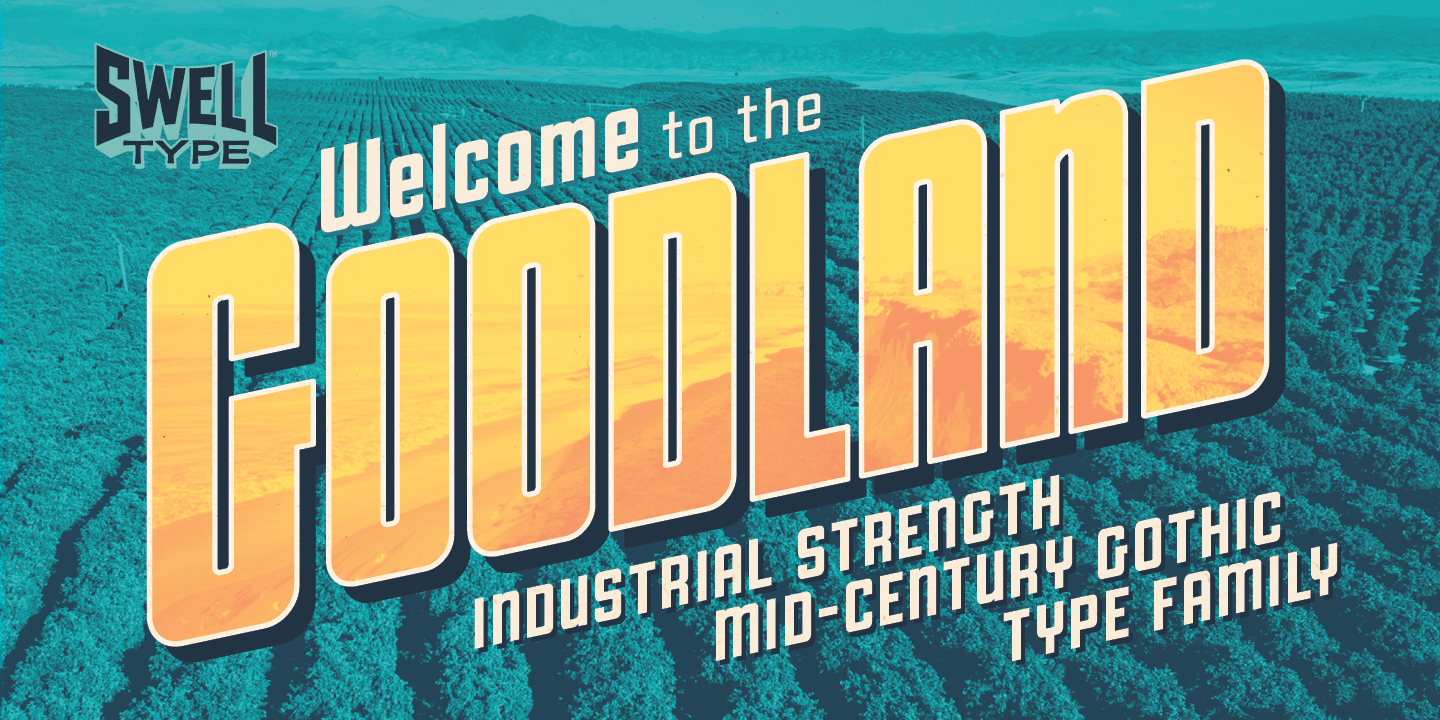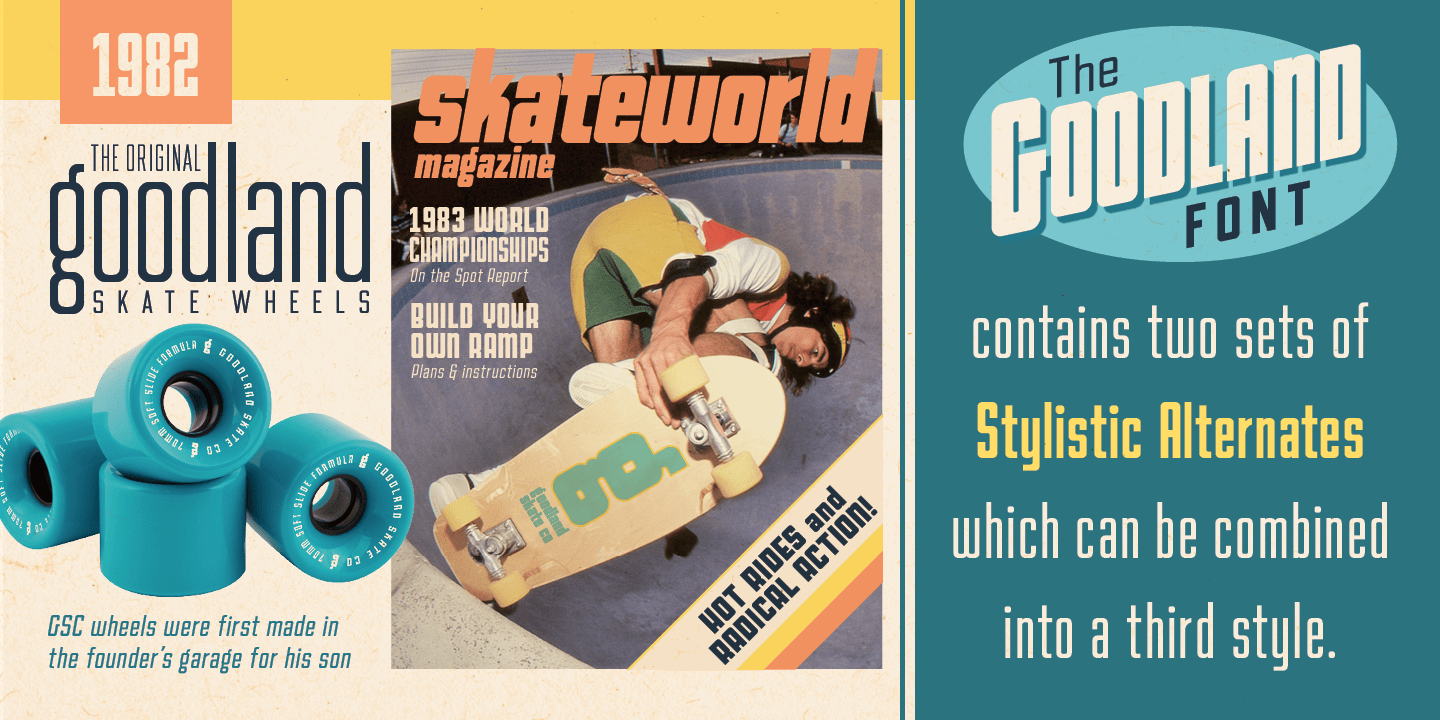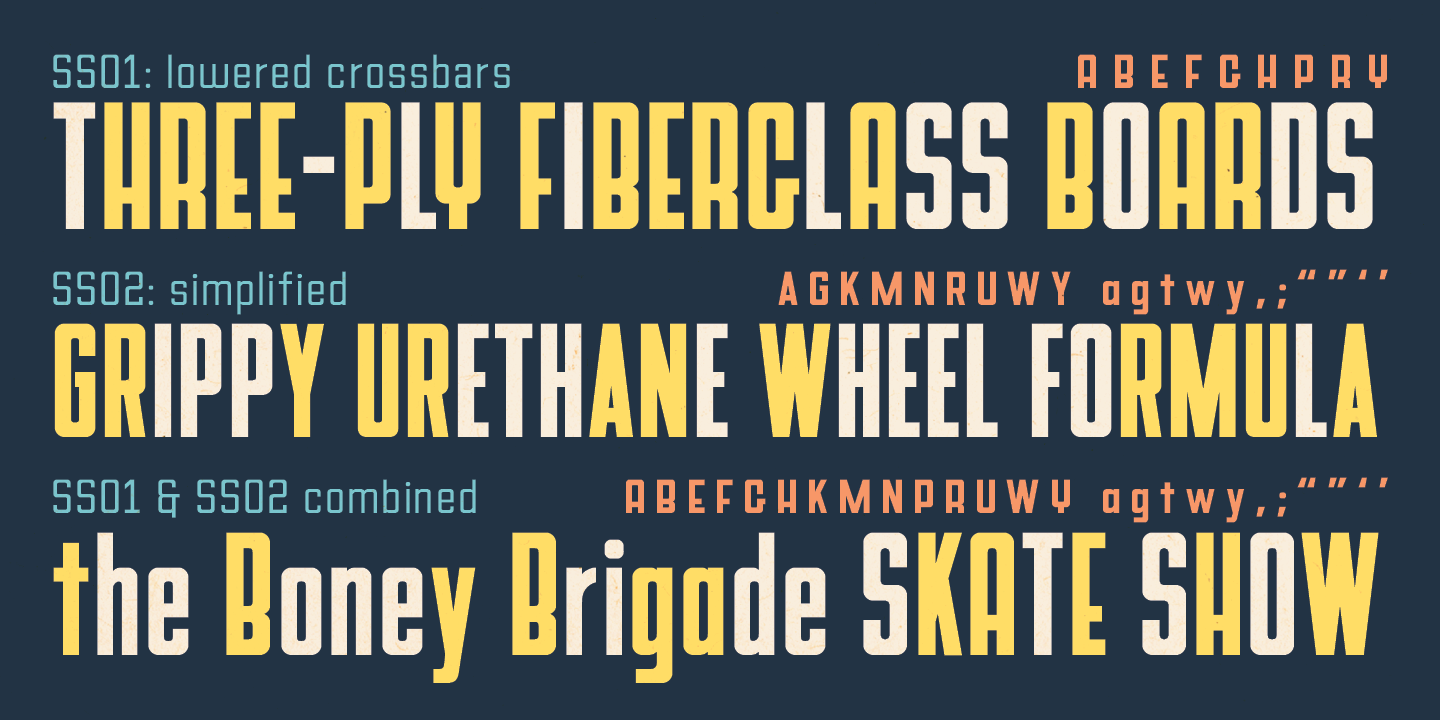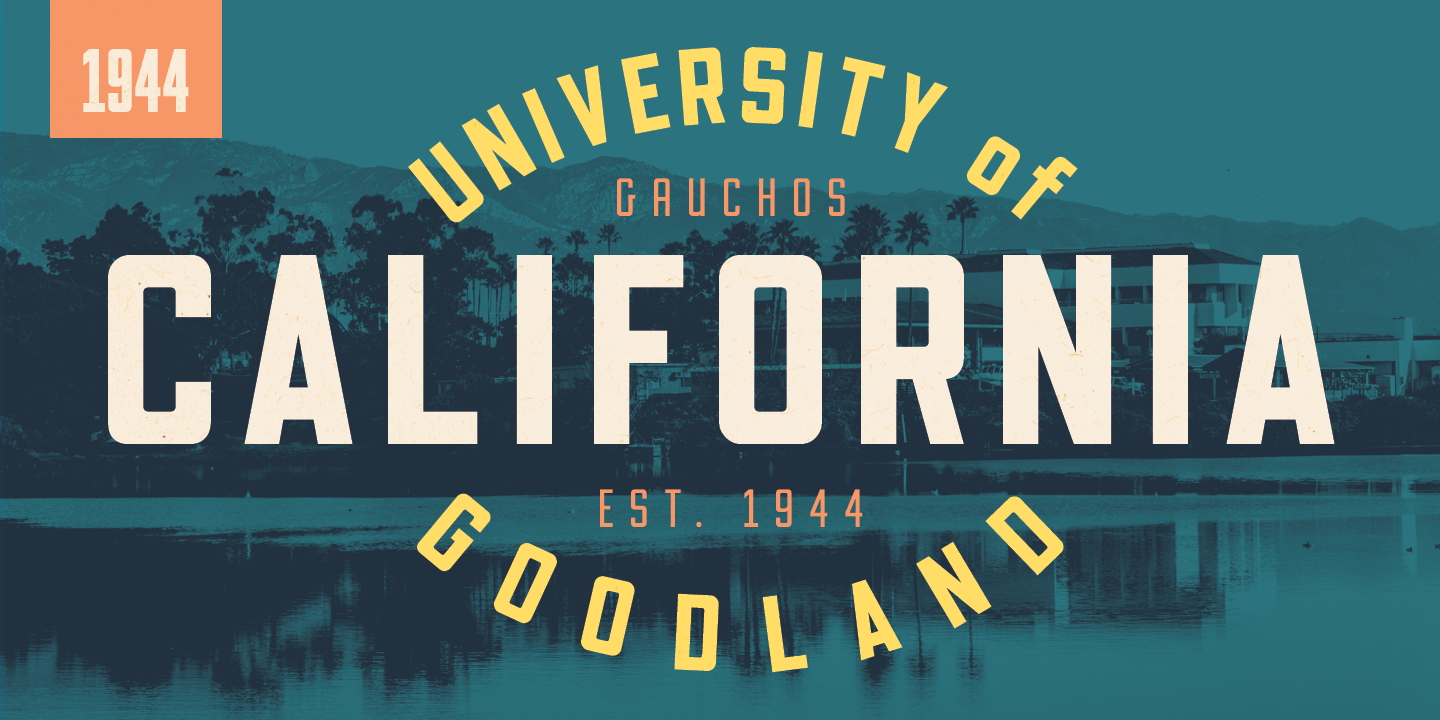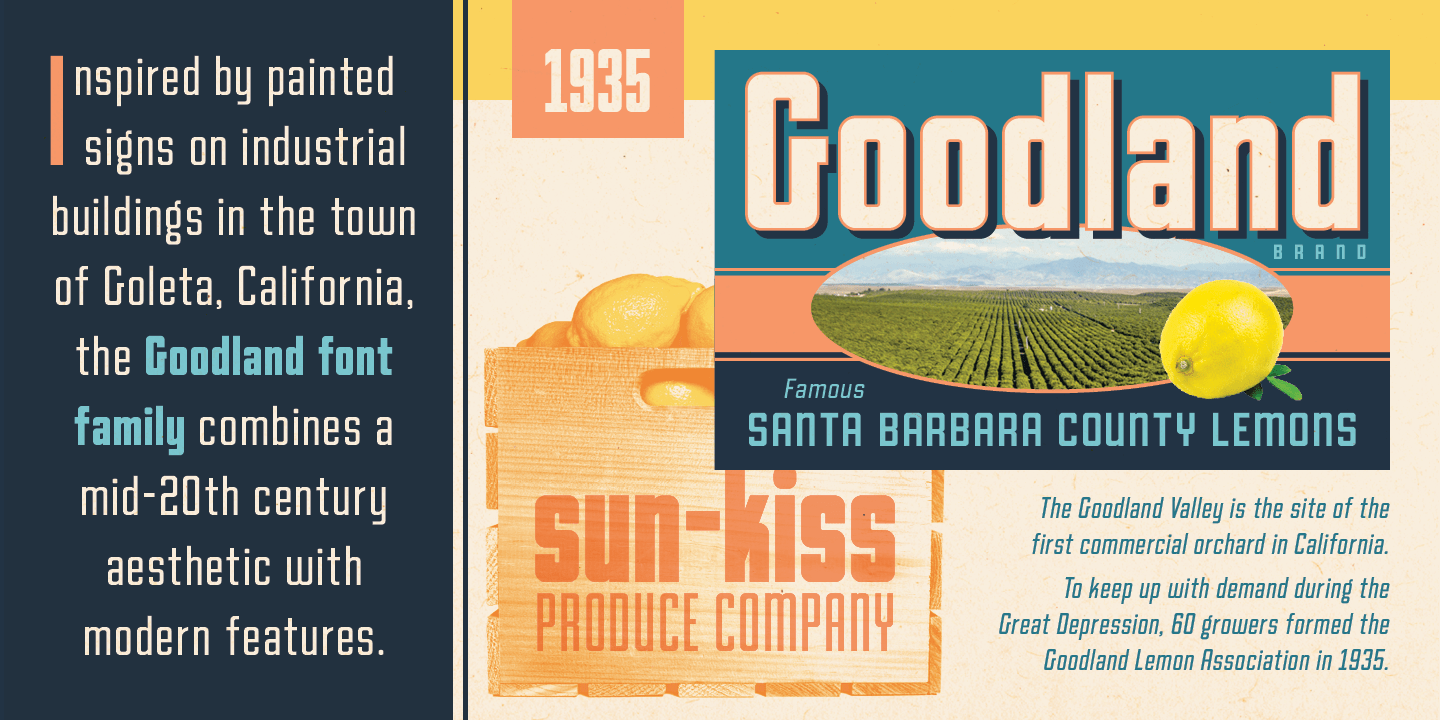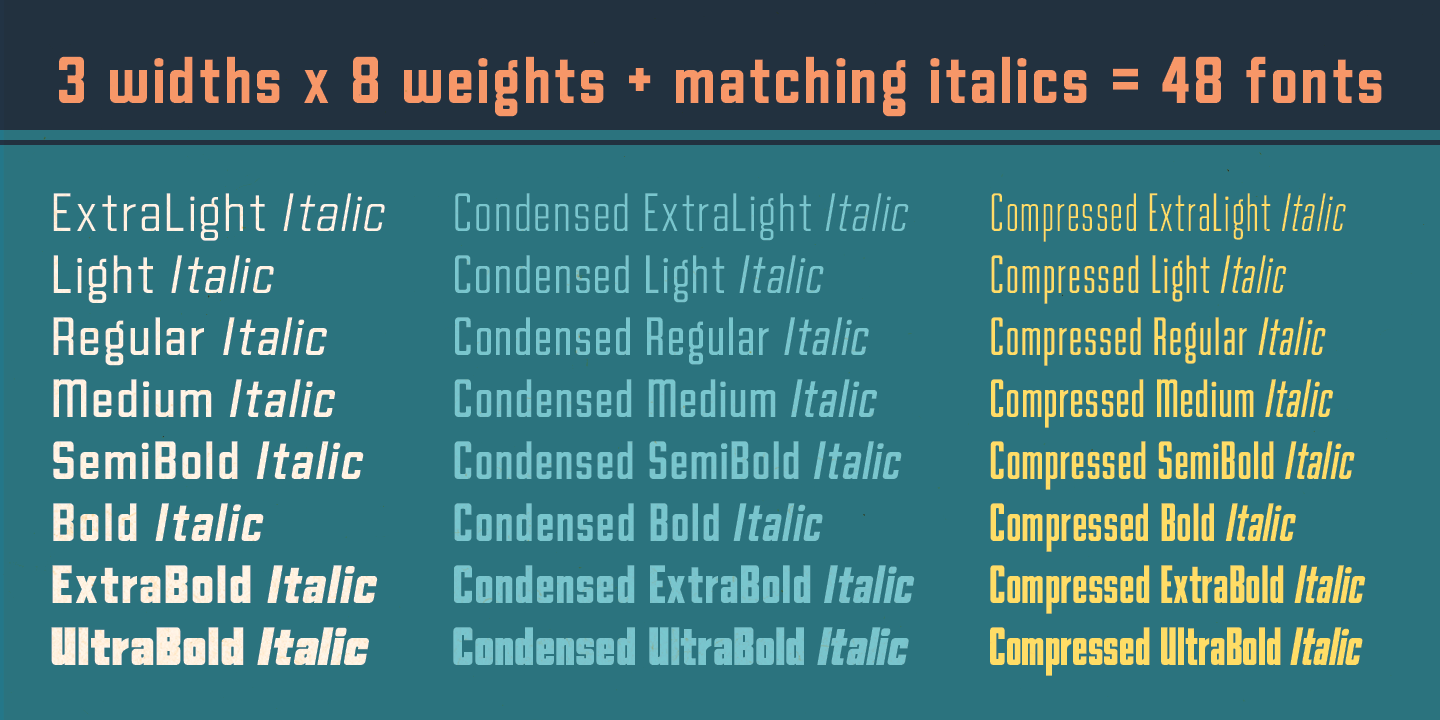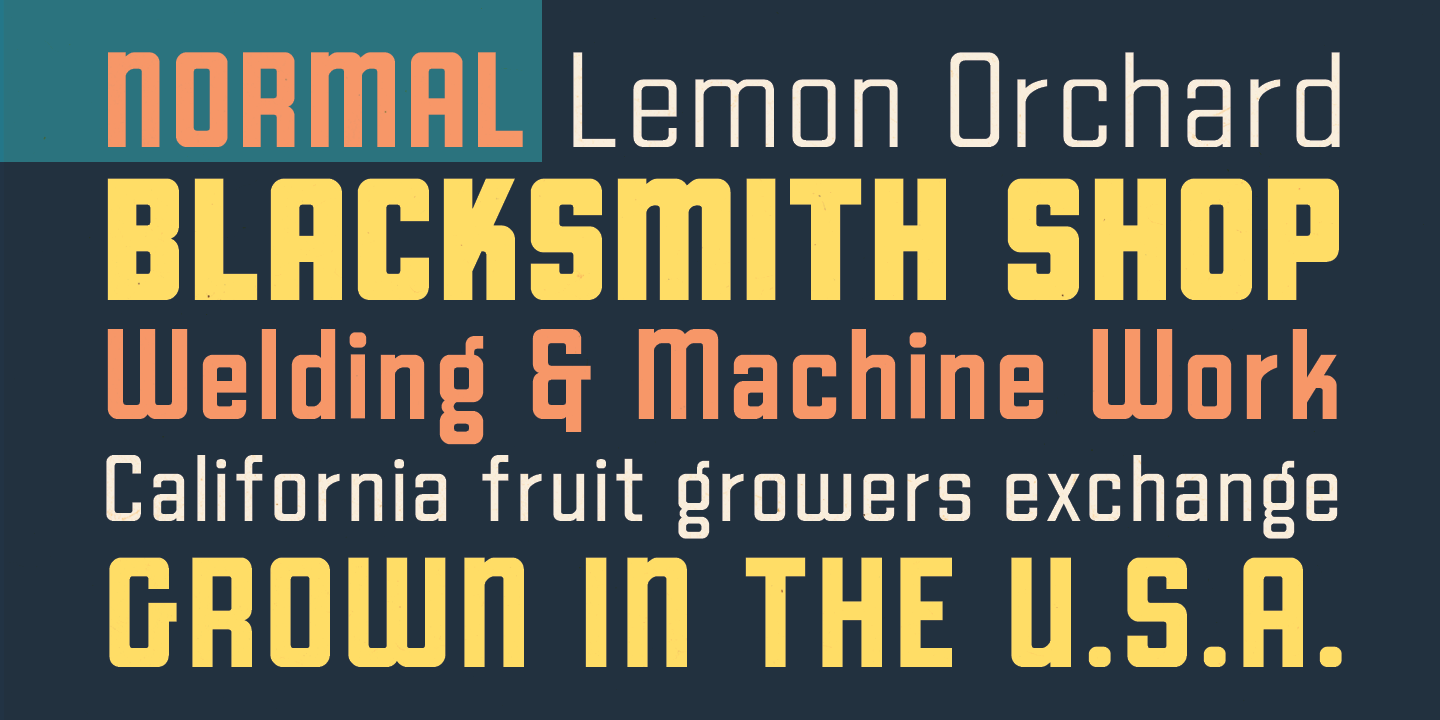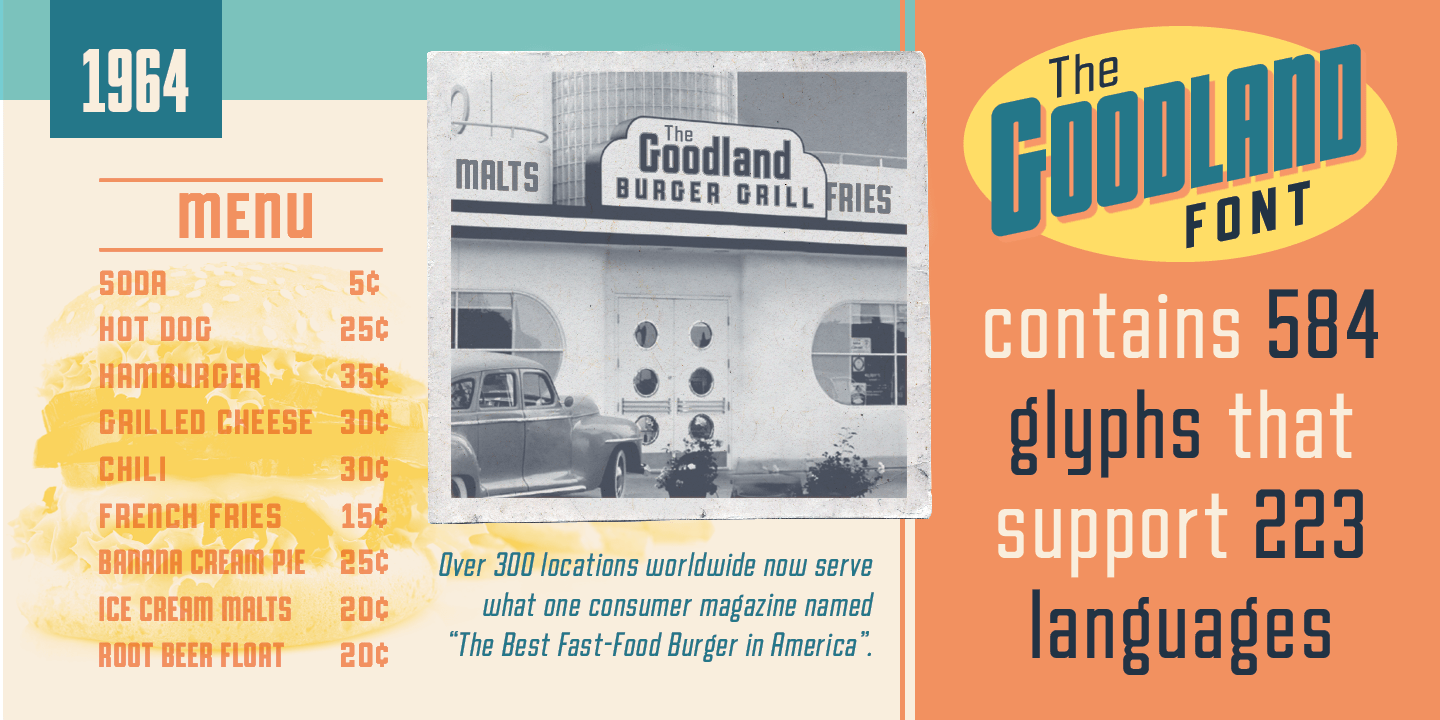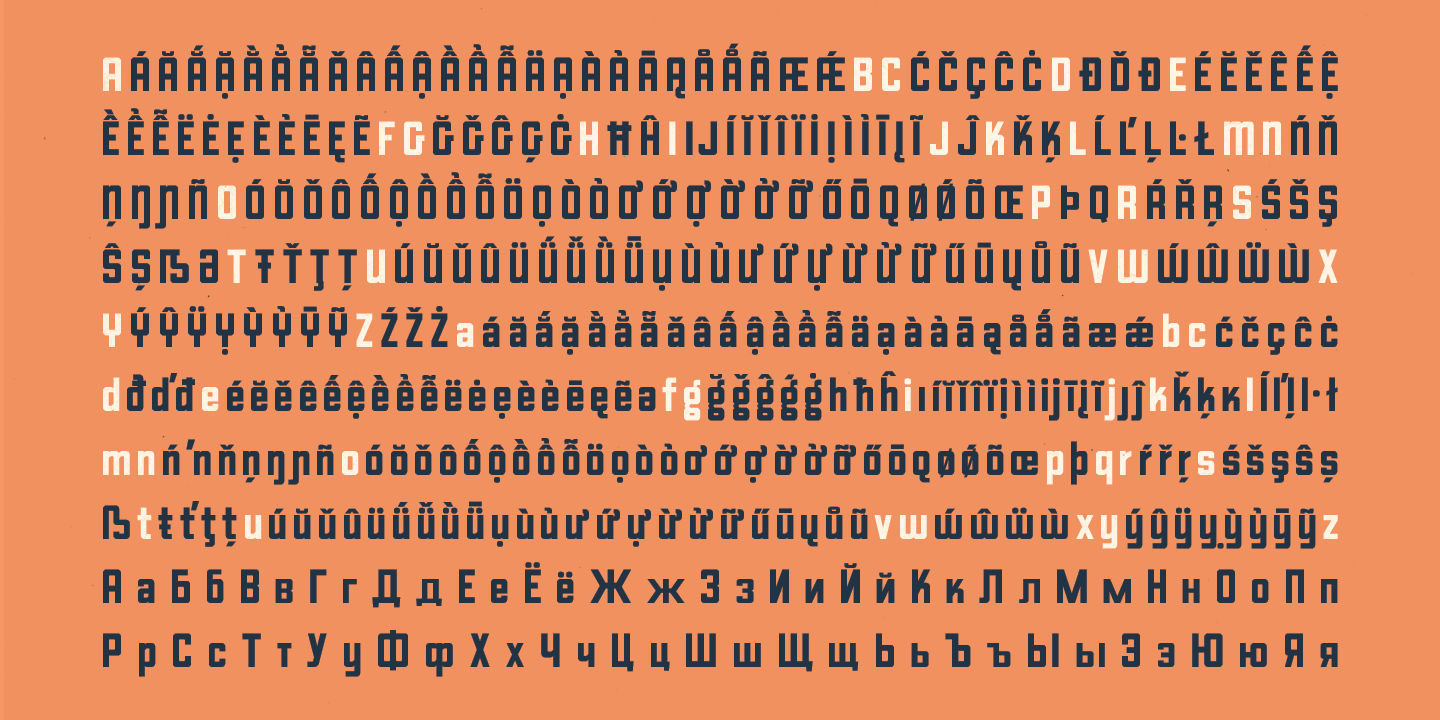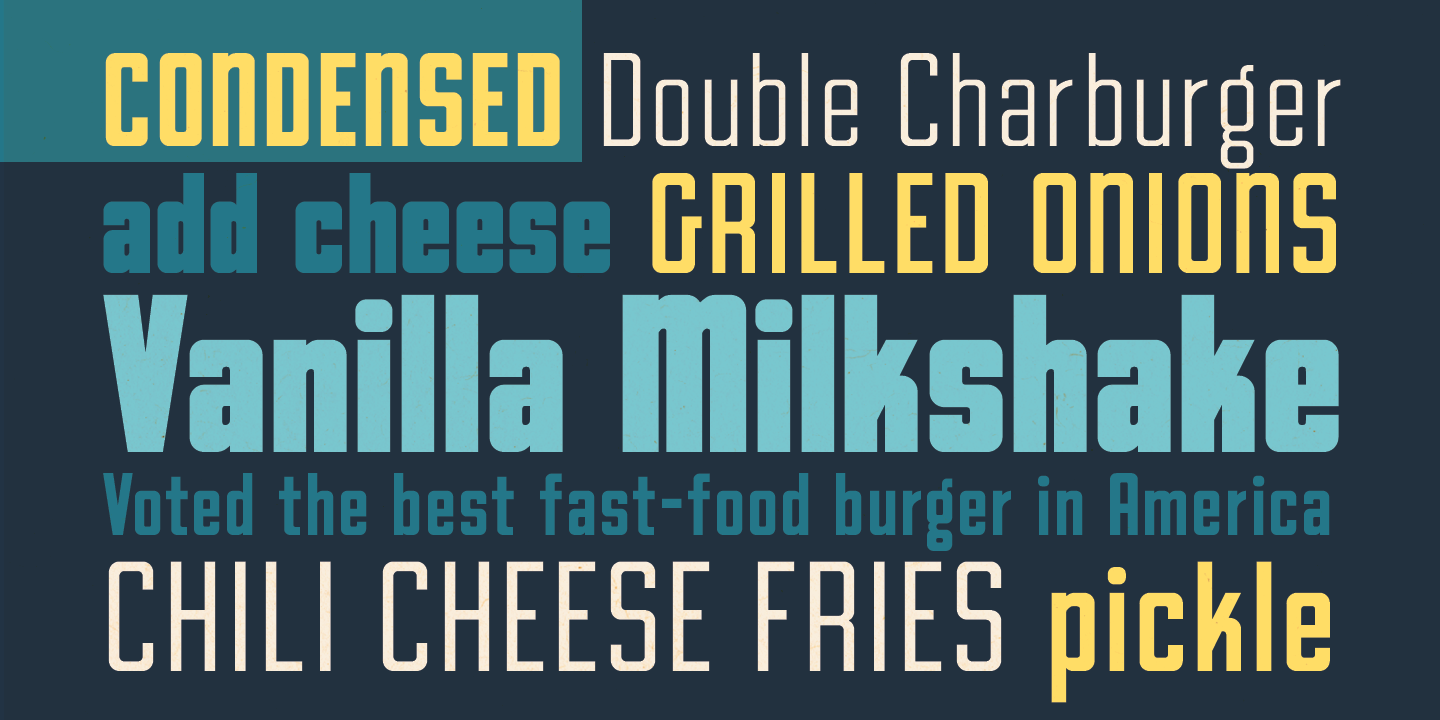
Goodland
Font Family by Swell Type
THE ULTIMATE INDUSTRIAL STRENGTH MID-CENTURY GOTHIC FONT FAMILY
Inspired by painted signs on industrial buildings in the town of Goleta, California, Goodland combines a mid-20th century aesthetic with modern features.
Extreme Light and Bold weights stand out in headlines and display type, while the mid-range Regular and Medium make for easily readable body text on light or dark backgrounds. Dial in the exact look you need with Stylistic Alternates and Variable Font features.
Built tall and strong, the Goodland font family is ready to do the heavy lifting in your next design project!